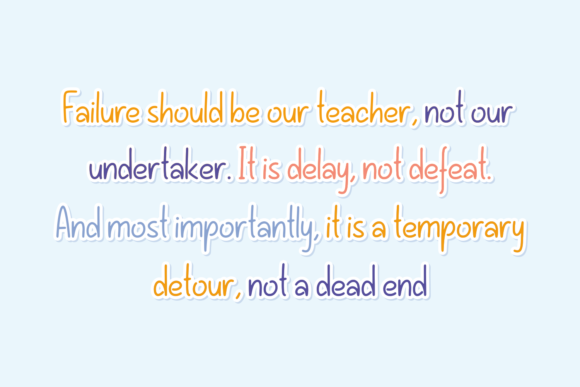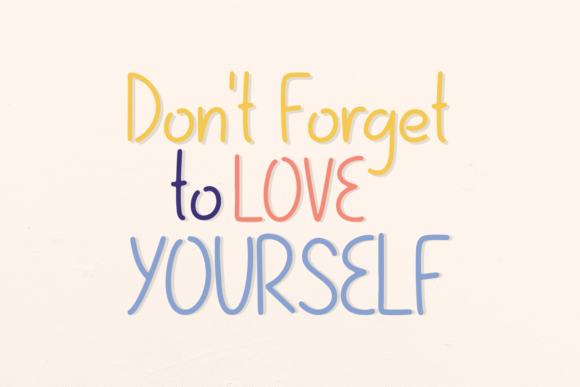
Craft Candy Font
db-ku.com - Script & Handwritten -- Craft Candy is a fancy and elegant handcrafted font created to impress your audience and make your branding shine.